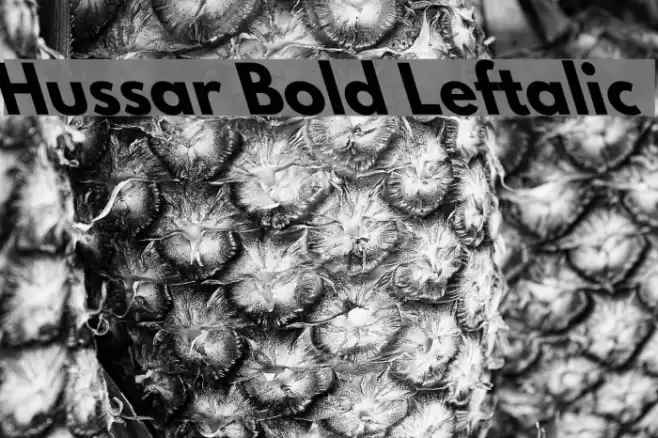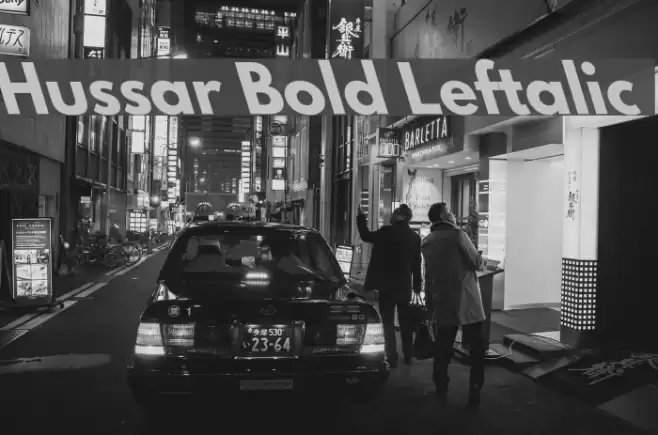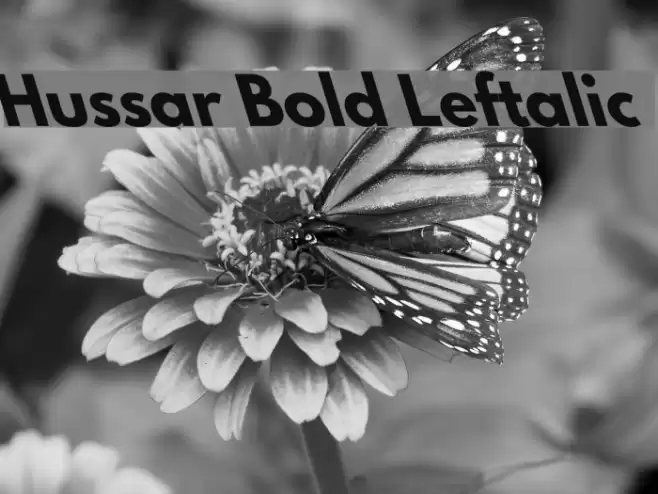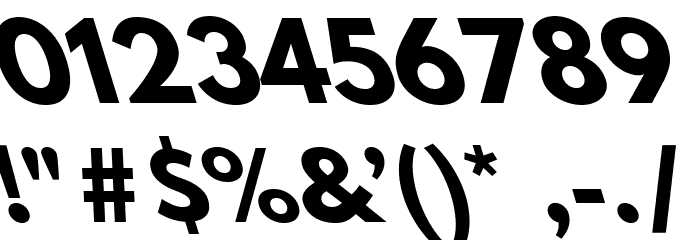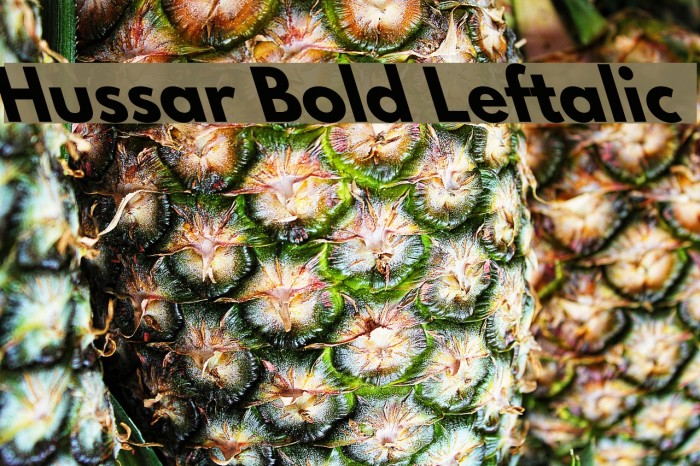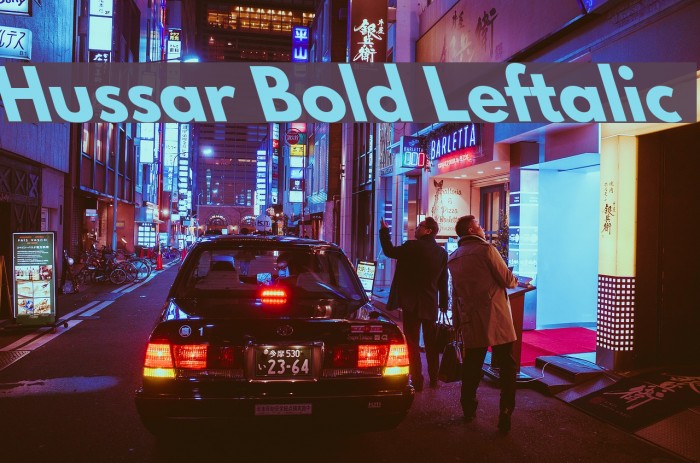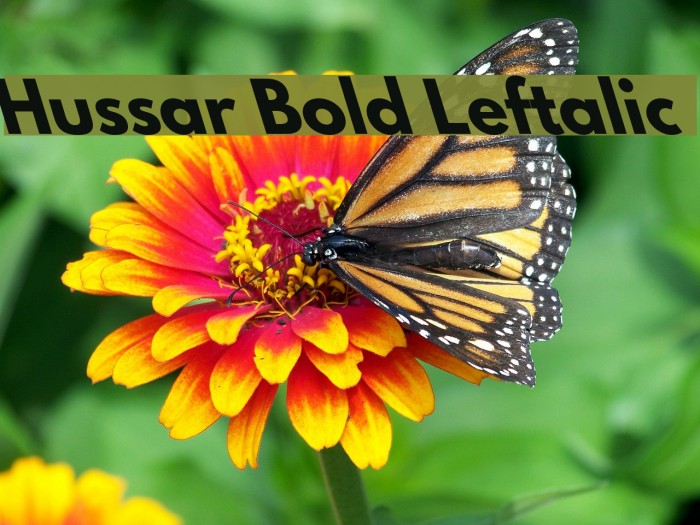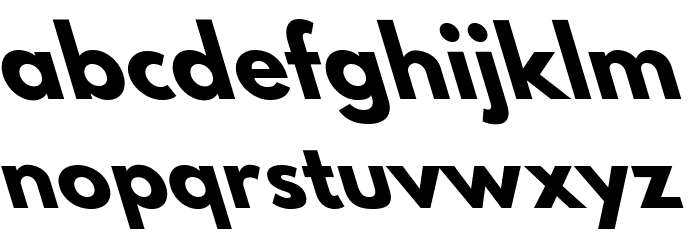
Hussar Bold Leftalic
This font features a bold and dynamic style with a leftward slant, giving it a unique and modern appearance. The characters are thick and robust, providing a strong visual impact. The uppercase and lowercase letters maintain a consistent weight, enhancing readability while adding a touch of flair. The numerals are equally bold, ensuring clarity in numerical data. Special characters are well-defined, complementing the overall aesthetic. This font's boldness and slant make it stand out, ideal for projects requiring a strong and distinctive typeface.
A bold, left-slanted font with a modern and dynamic style.
- Proposed Projects: Ideal for headlines, posters, branding materials, and any design needing a bold statement.
- Use Case: Headlines, Logos, Posters